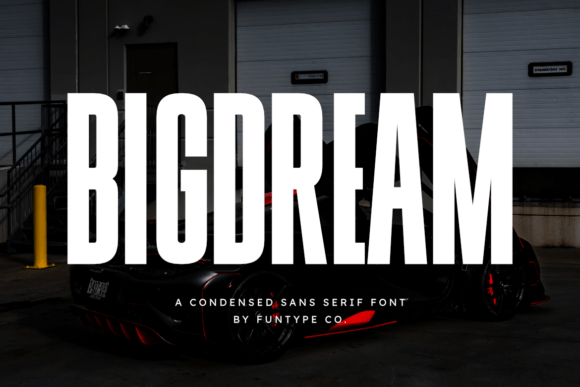
The Birth of a Big Statement
It’s that moment of creative clarity, when an idea hits you like a ton of bricks, and you know exactly what you need to bring it to life. For designers, this moment often comes when we’re tasked with creating a visual identity for a luxury brand or a high-stakes campaign. And that’s where the Bigdream Font comes in – a powerful, elegant condensed sans serif display font that’s designed to convey ambition, strength, and premium quality.
With its tall, streamlined form and clean lines, the Bigdream Font is perfect for making a bold yet refined statement in any setting. Whether you’re working on a fashion editorial, a modern poster design, or a luxury branding project, this font is sure to deliver. And as a designer, you know how valuable it is to have a versatile and professional typeface at your disposal – one that can elevate your work and make a lasting impression.
Key Features of Bigdream Font
- Unique Characteristics: Bigdream Font features a distinctive, modern aesthetic with a mix of geometric and organic elements, making it suitable for creative and innovative designs.
- Font Pairing: The font family includes a set of matching italics and bold weights, allowing designers to create harmonious and balanced typography by pairing different font styles.
Bigdream Font Review
I recently had the chance to work with the Bigdream Font, and I must say it’s been an interesting experience. ✨ One thing that works well is its playful and whimsical feel, which can add a touch of personality to any design project. The font’s unique letterforms and bold strokes can help convey a sense of fun and creativity.
Another strength of the Bigdream Font is its versatility. ✨ It comes in a range of weights and styles, making it suitable for a variety of applications, from logos and branding to posters and social media graphics.
However, there are some limitations to consider. ⚠️ For one, the font can be a bit overwhelming if used in large quantities or as a body text font. It’s best used in smaller amounts to add emphasis or create visual interest. Additionally, some of the letterforms can be difficult to read at smaller font sizes, which may limit its use in certain contexts.
Overall, I think the Bigdream Font is a great choice for designers looking to add some personality to their work. While it may not be suitable for every project, it’s a great tool to have in your toolkit.
- Unique and playful letterforms
- Range of weights and styles available
- Perfect for adding emphasis or visual interest
- Can be overwhelming if used in large quantities
- Some letterforms may be difficult to read at smaller font sizes
Getting the Most Out of Bigdream Font
For optimal results, use Bigdream Font in conjunction with bold or italic styles to create emphasis. You can also use it to create a distinctive logo or branding element. Experiment with different font sizes and colors to find the perfect combination for your design.
Bigdream Font is ideal for use in creative and artistic projects, such as:
- Graphic design
- Logo design
- Typography-based art
- Marketing materials